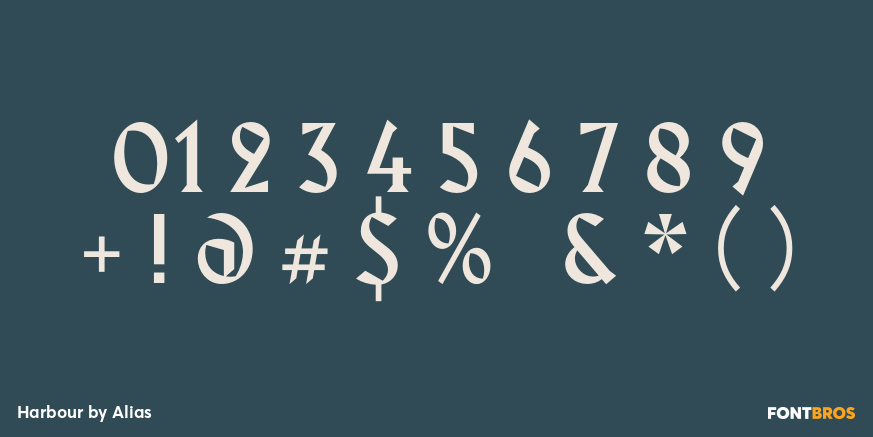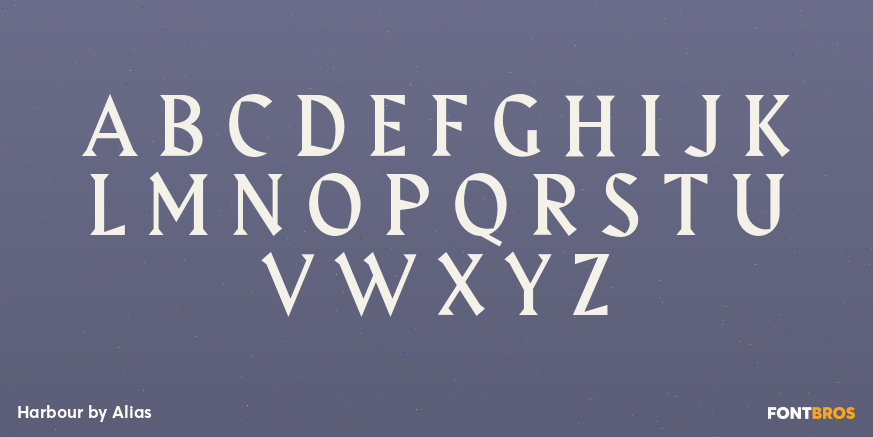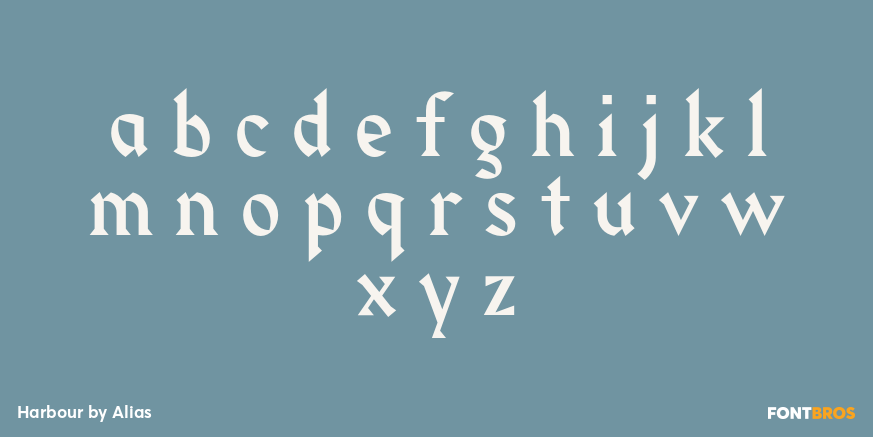
Harbour
Font Family by Alias
Harbour is a clash of Latin and Germanic typestyles - two conflicting letterforms, culturally, politically and aesthetically. Latin letterforms have a geometric base, blackletter types are calligraphic. Harbour takes calligraphic forms that derive from writing with quills, but is a typeface that is clearly drawn? rather than written? to produce graphic, dynamic letterforms.